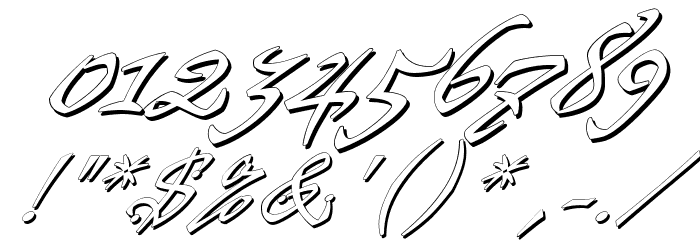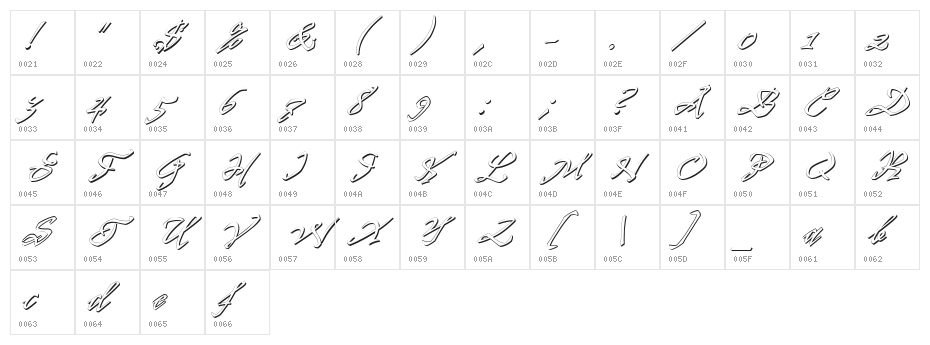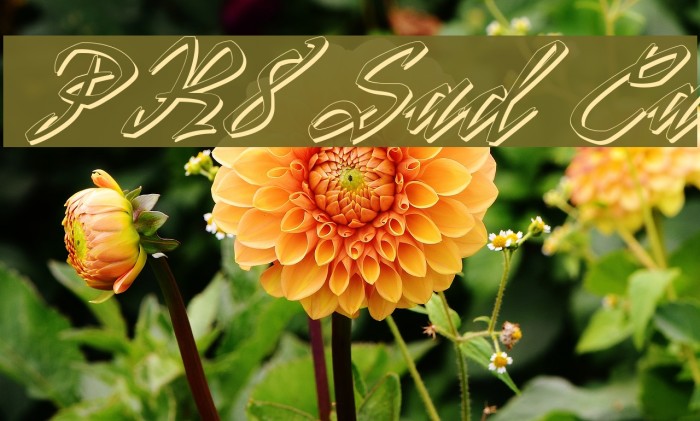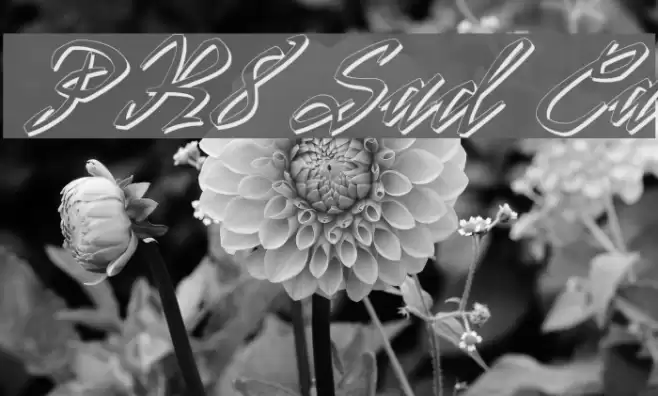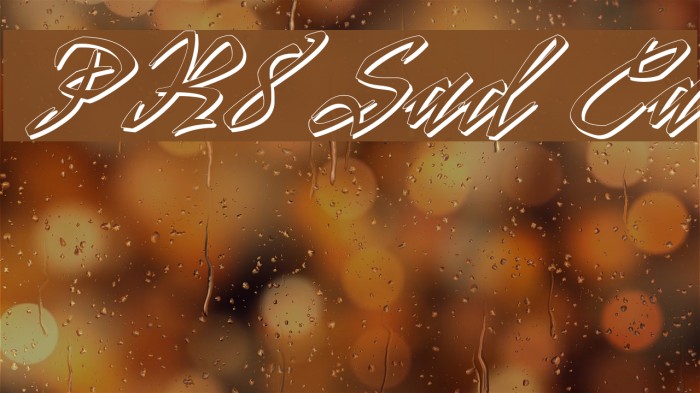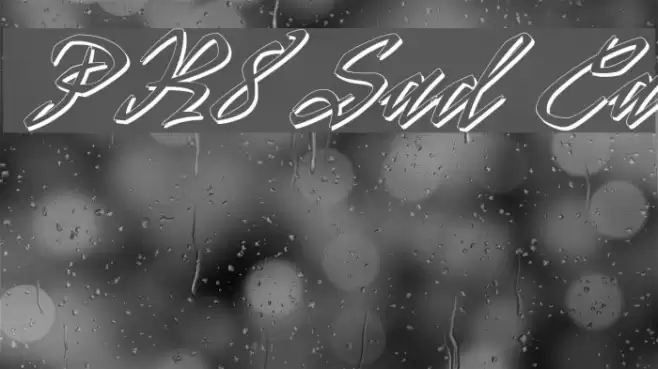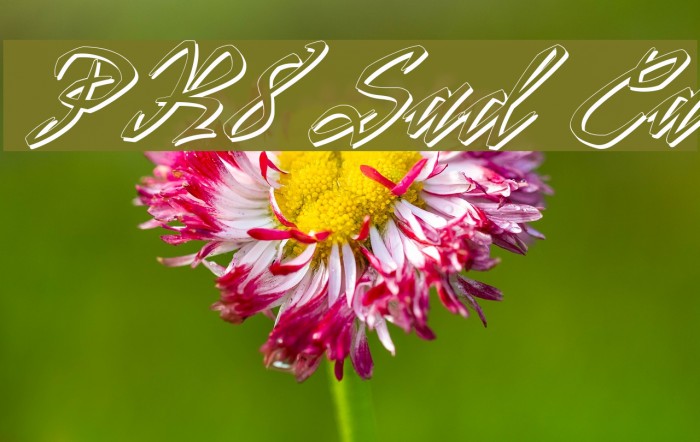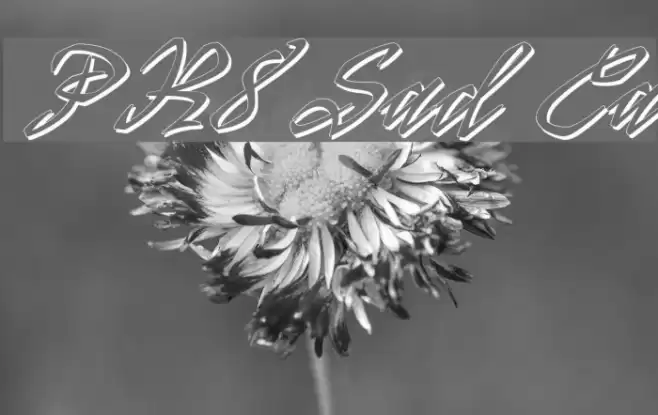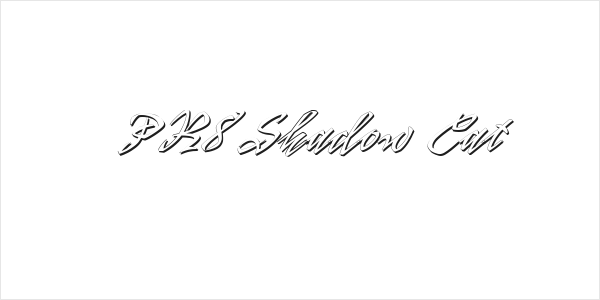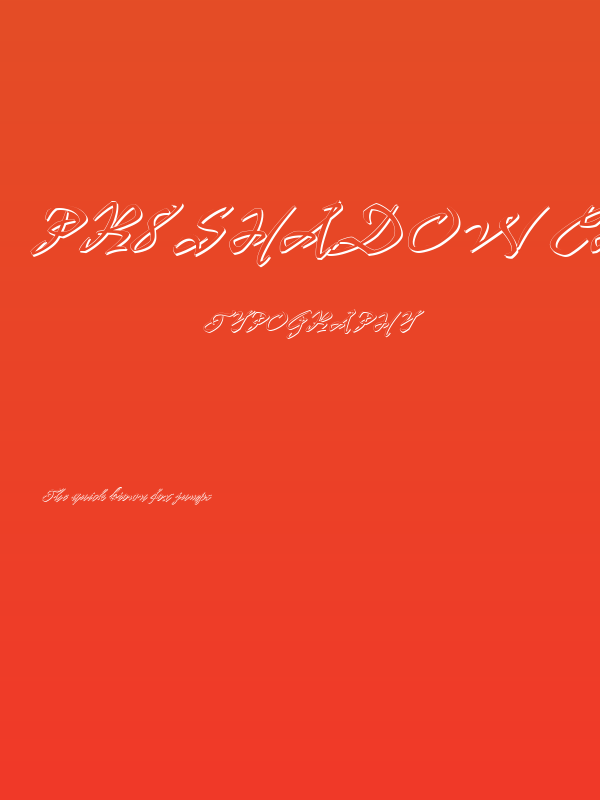
PR8 Shadow Cat Font
PR8 Shadow Cat Description
This font features a dynamic and expressive script style with a distinct shadow effect that adds depth and dimension to each character. The letters are elegantly connected, creating a fluid and continuous flow that enhances its handwritten appearance. The uppercase letters are bold and prominent, while the lowercase letters maintain a graceful and stylish form. The numerals and special characters are crafted with the same attention to detail, ensuring consistency throughout. The shadow effect gives the font a three-dimensional look, making it stand out in any design. This font is perfect for projects that require a touch of sophistication and flair.